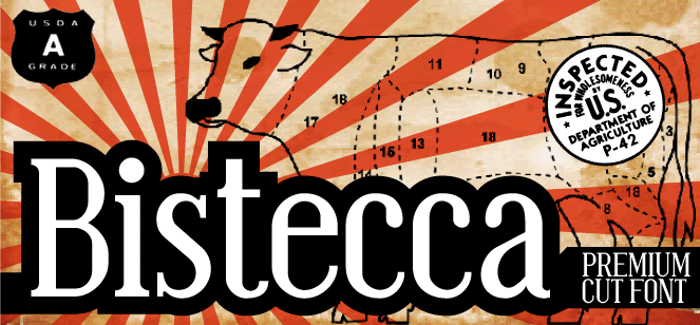
Bistecca Font
Bistecca is a condensed serif font. Highly readeable, it was created for headlines, captions and stylish text blocks. http://www.zetafonts.com/bistecca